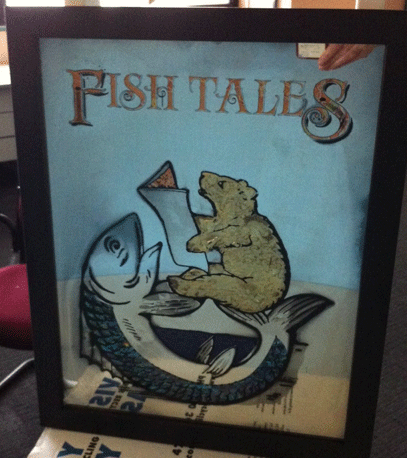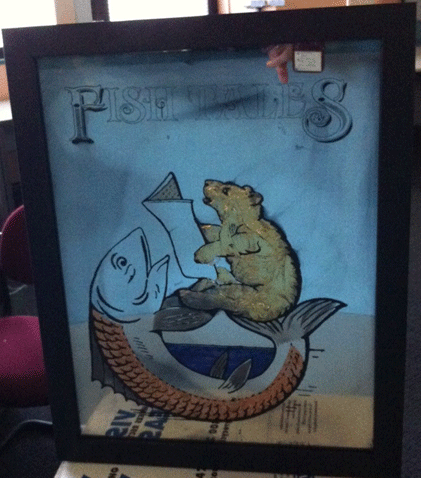
Hi all,
its been a while since I wrote on the forum, but that hasn't meant I gave up.
I took the variety of advice and went away and worked on my mirror.
I found a screen printer who set me up with ink that adheres to glass, and then I did my artwork and proceeded to learn how to screen print in rudimentary conditions - my laundry and backyard.
I created 4 prints, 2 were better than the others. I glue chipped all four, two broke. I angel gilded & silvered the remaining two, (took a photo at this stage) I botched up one so I used that as a test for my mica powder and then just as I was nearing completion after many learning curves, I held up the mirror to show my husband my near finished product with mica applied and the mirror just slipped out of my hands. :shock:
Needless to say I was in the laundry with the tiled floor at the time and only slithers of the mirror remained intact. :cry:
But! I had already started dreaming of increasing the size of the design and placing it on a larger piece of glass so I dusted myself off took an hour off for reflection and then began planning again :)
# problems I encountered -
Is there an optimum thickness of glass needed for glue chipping?
The print came off around the edges when I cleaned it for silvering - I'm using a two pack epoxy but the fine print doesn't seem to with stand the rigors of cleaning.
I've since added lettering at the top of the design - Fish Tales - as my critique's :? were always asking what the image was about.
Thought Id let you see the pics I have and get some feedback - maybe a pat on the back?
Hi Megan,
Happy to hear your still trying to work things out. It's a life long thing really. Sorry to hear about your loss but at least your weren't hurt.
For me I always try and do all my mirroring first. Then do the painting after. You always take a chance on paint loss when you scrub on the paint to clean it for mirroring.
I had thought to mirror first, but the question of when would I glue chip and angel gild confused me so instead I printed the design, sandblasted and glue chipped the bear, angel gilded the small area and removed the overspilt gold and then mirrored.
I am eager to know what order you would have done the above steps in and why
chip first, then mirror.then angle gild , then paint,
I would agree with Roderick, but it seems like your art work (the black lines) are important, so they need to be under the silver. So I would change it around a little bit:
1) Register your glass pieces in the silk screen setup. Check every piece, that it is sitting well against the stops. Mark "up" on the front side of the glasses.
2) clean the glass, apply sandblast mask (probably just white vinyl). Now put them in the silkscreen and pounce black powder thru the screen. You can blow the powder out of the screen so it won't affect the printing, and now you have a nice visual to cut the mask. Remember to leave a glow line.
3) sandblast, gluechip, clean off very carefully. This is your last chance to really rub the glass.
4) gild - angel gild or water gild. Back up by hand with the epoxy ink. (You can backup with the silkscreen, but then you'll have to clean the screen and probably lose the register.) Let the ink dry.
5) Clean off the excess gold. Clean the glass as well as you can.
6) Print the black lines in epoxy. Let dry.
7) The glass is still clean, right? So you can just rinse, tin & silver... (Silvering to the edges is extra hard to pull off.) Dry the silver well - a hair drier is good.
8) Back up all, leaving openings for the mica powder. This backup doesn't need to be super tough.
9) De-silver the openings. Rinse and dry.
10) Put in varnish and dust on mica (?). Whatever you did before.
11) You can do a backup over the whole thing, or flock, or whatever, depending on how it will be displayed. Our system is usually to let it sit around until we drop it on the floor, but you're way ahead of us on that. Post a picture...
I have no idea of what liver of sulphur is but I'm off looking in google.
I keep on finding new things to try and this weekend I'm looking at bringing out all my unused pieces of glass and trying some new things including engine turning, and making letters look bevelled with gilding.
Yep I've had the bug for a long time I have struggled with this for a few years now trying to find ways to "get around" the fact that I can't signwrite.